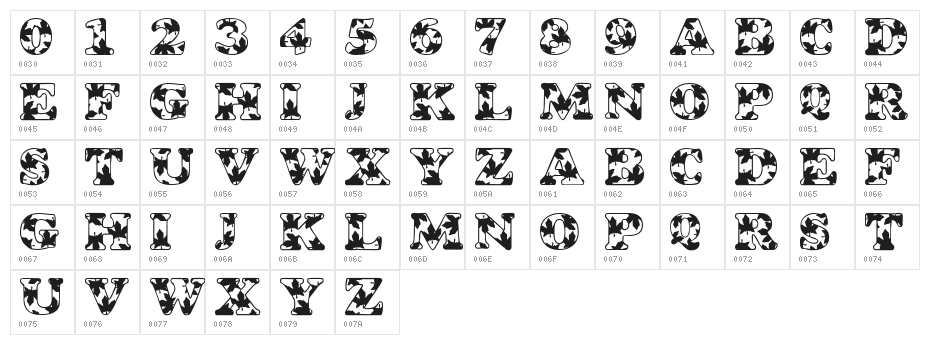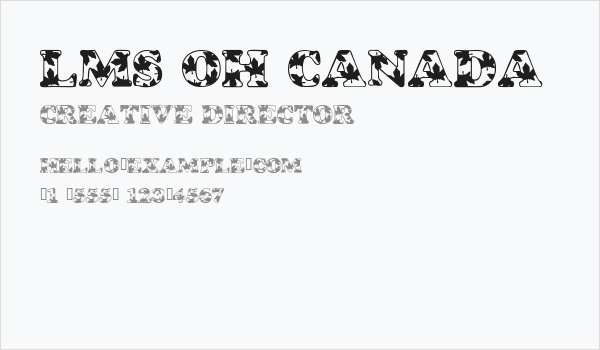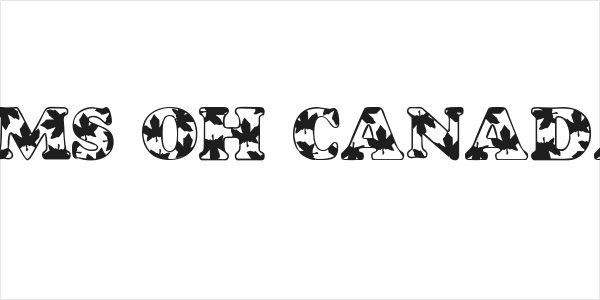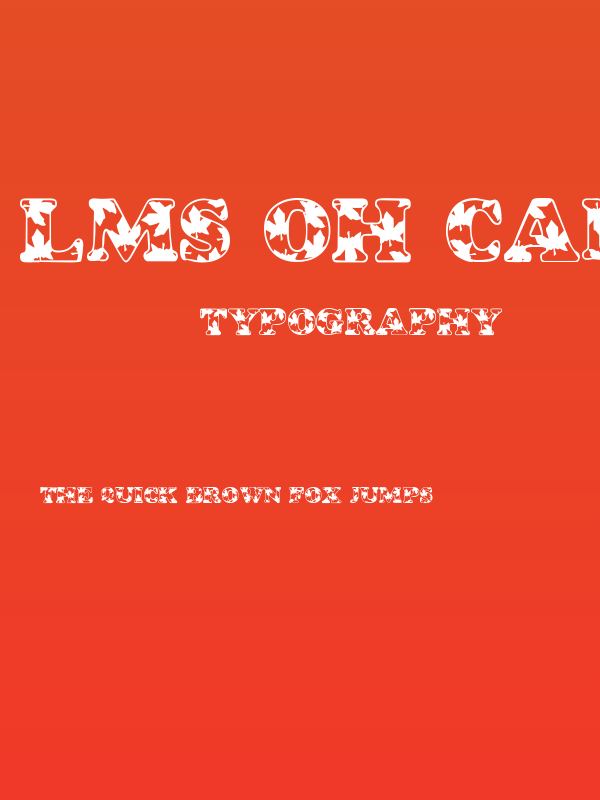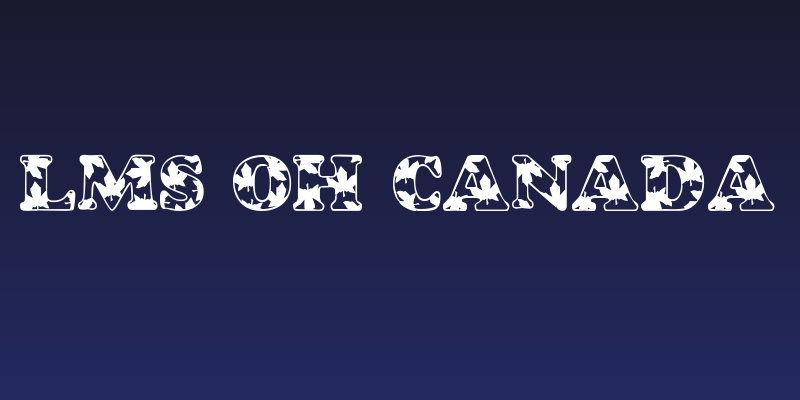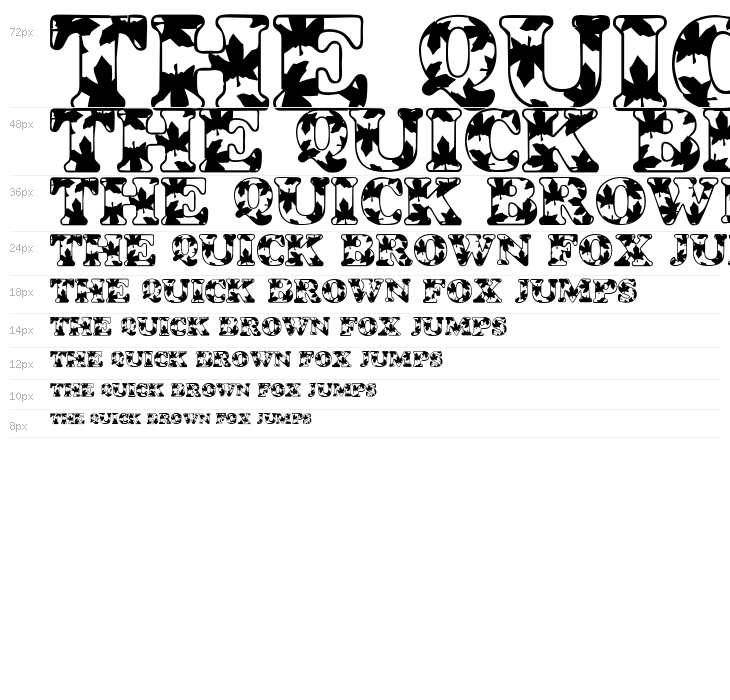
LMS Oh Canada Font
LMS Oh Canada Description
This font features a bold and decorative style with intricate patterns within each character, reminiscent of a Canadian theme. The letters are filled with maple leaf motifs, creating a unique and eye-catching design. The uppercase and lowercase letters maintain consistent styling, with each character exhibiting a playful yet structured form. The numbers and special characters follow the same decorative theme, ensuring uniformity across all glyphs. This font is ideal for projects that require a strong visual impact and a touch of national pride.
| Proposed Projects | Ideal for themed posters, event invitations, branding for Canadian products, or any project celebrating Canadian culture. |